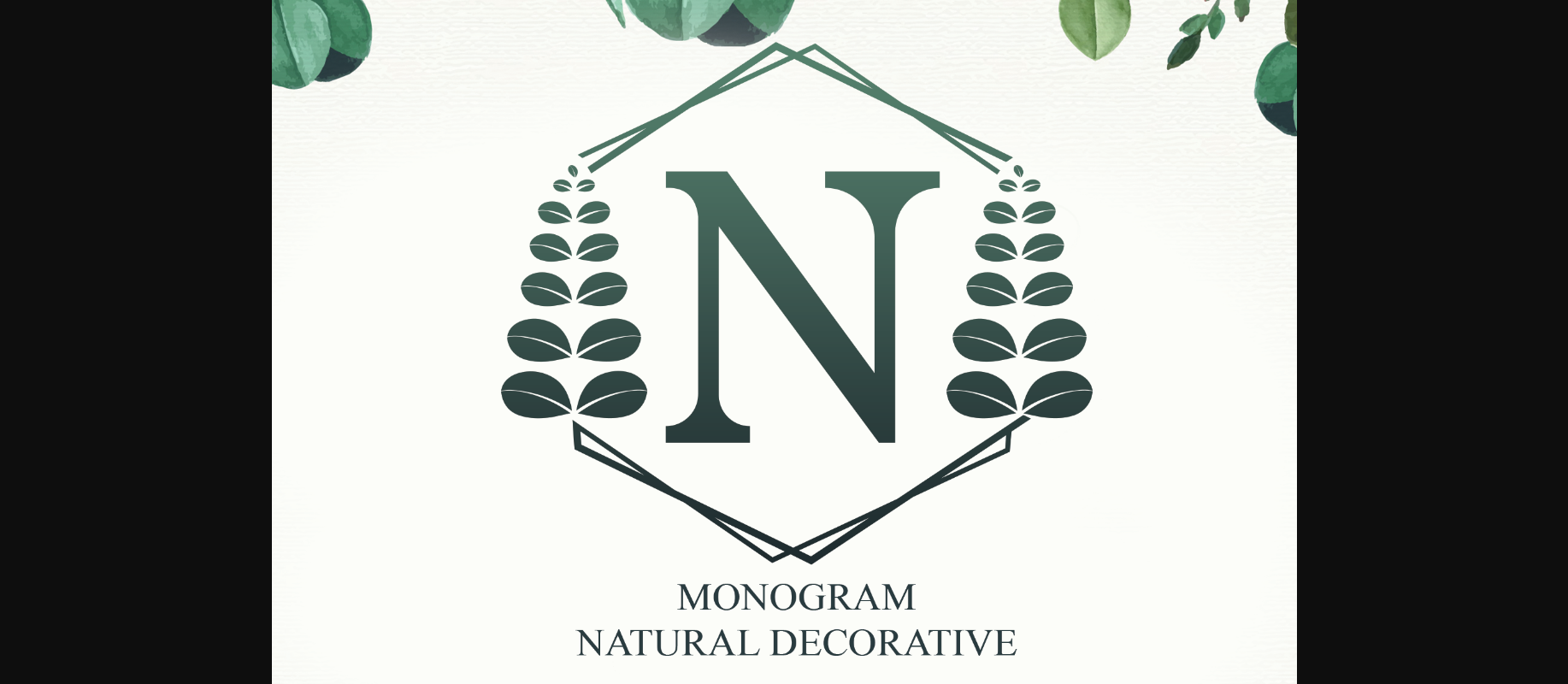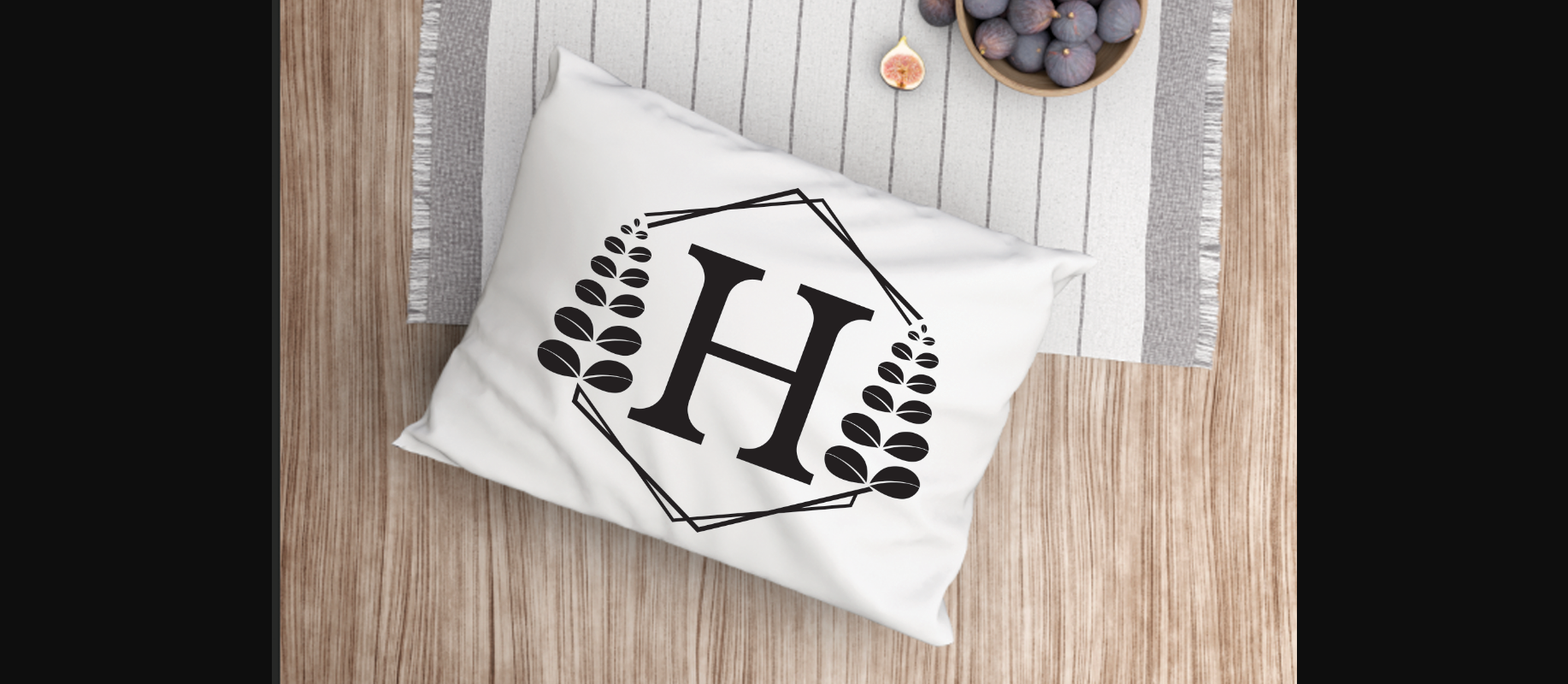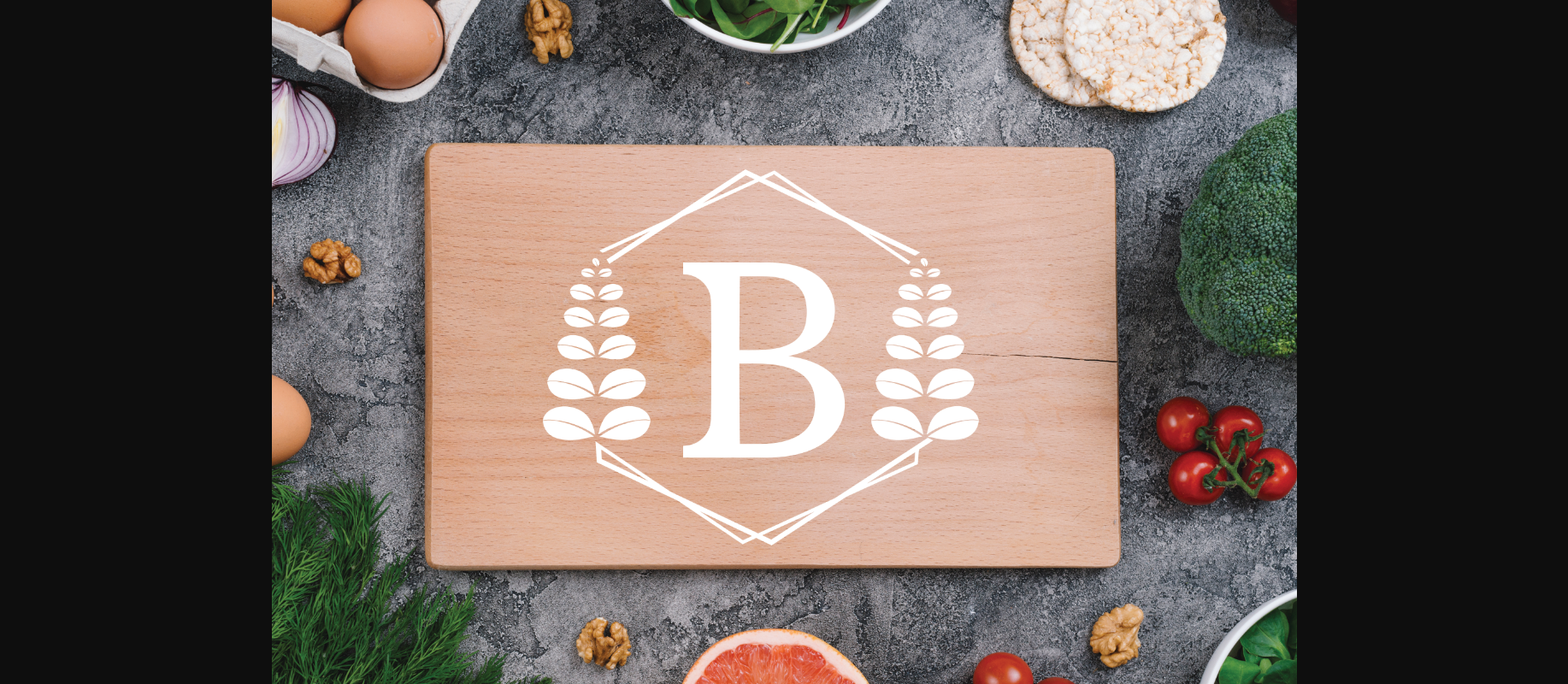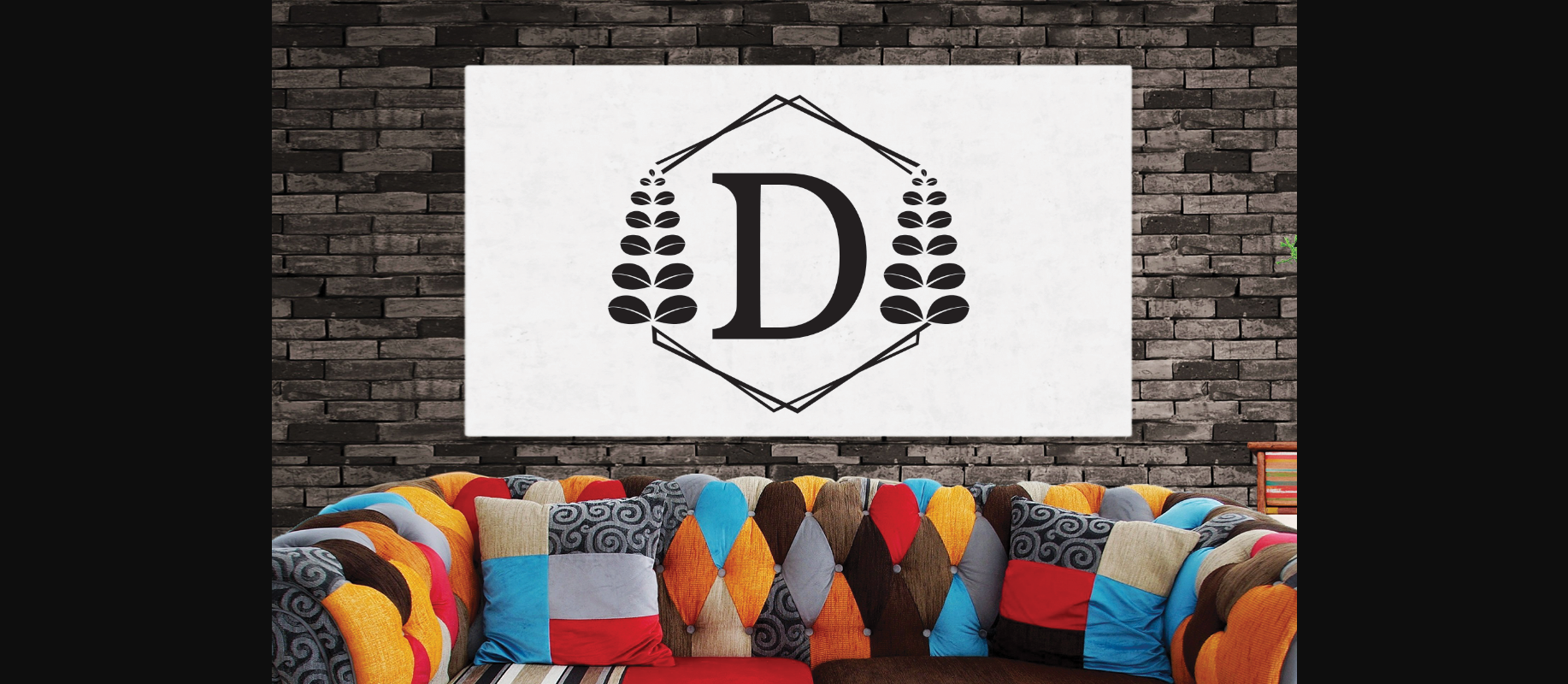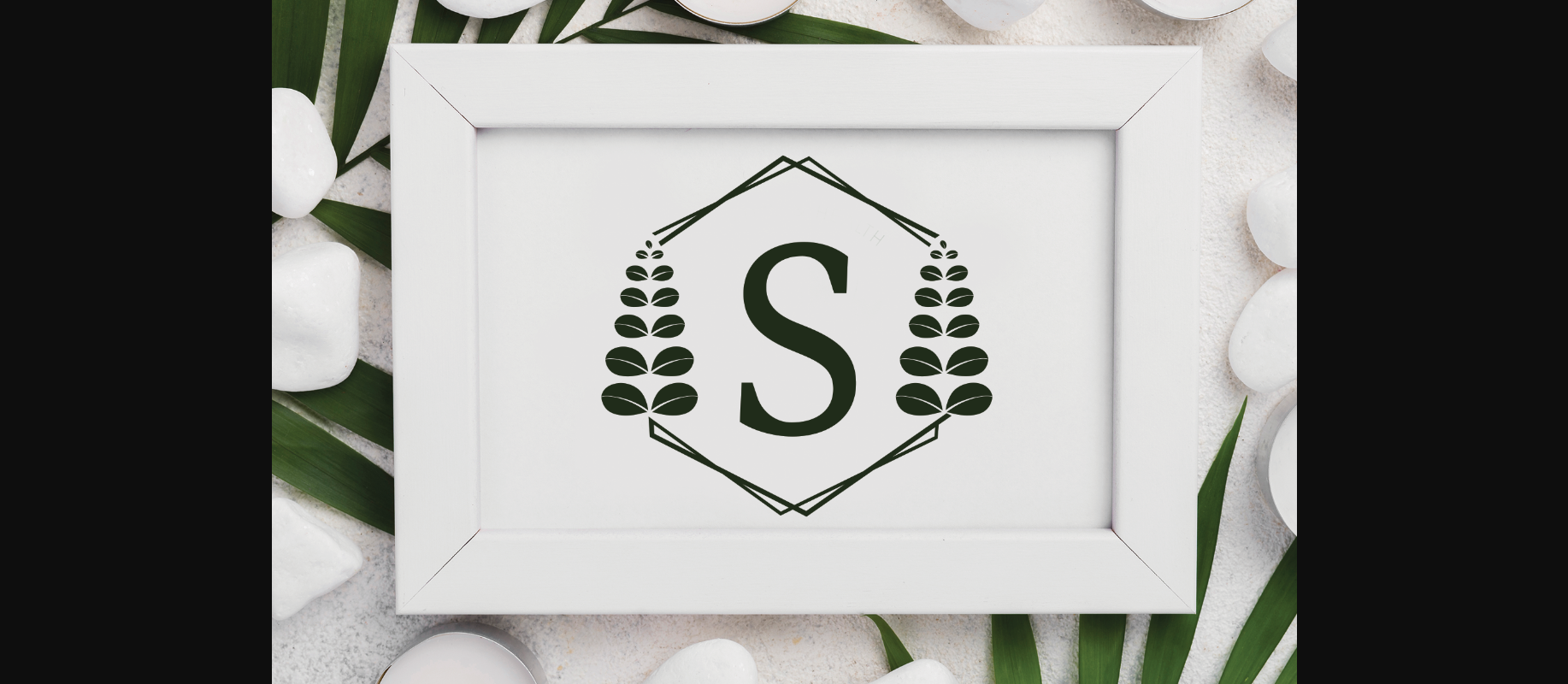
Natural Font
About Natural Font
Natural is a fresh and trendy decorative font. Add this beautiful looking font to each of your love letters, wedding invitations or favorite design ideas, and you will be astounded by the outcome.